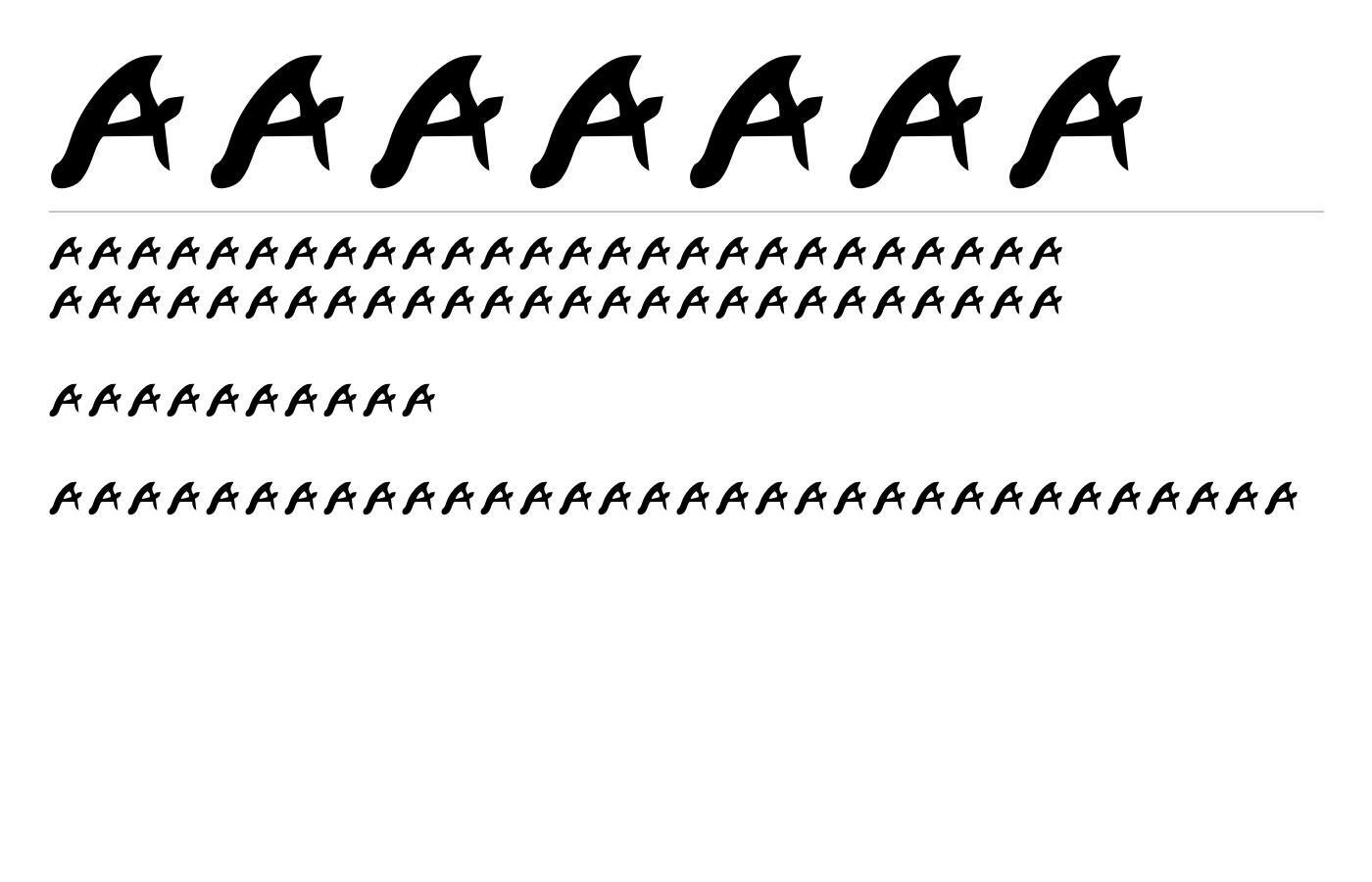
8 Octav is a bold, brush-script font with a dynamic and artistic feel, featuring thick, flowing strokes and a slight slant that conveys motion and energy. Its strong, smooth curves and casual, hand-painted style make it perfect for creative branding, headlines, and designs that need a lively, approachable character. This font works well in projects seeking a vibrant, handcrafted touch, such as logos, posters, or expressive editorial layouts.
8 Octav Font
About 8 Octav Font